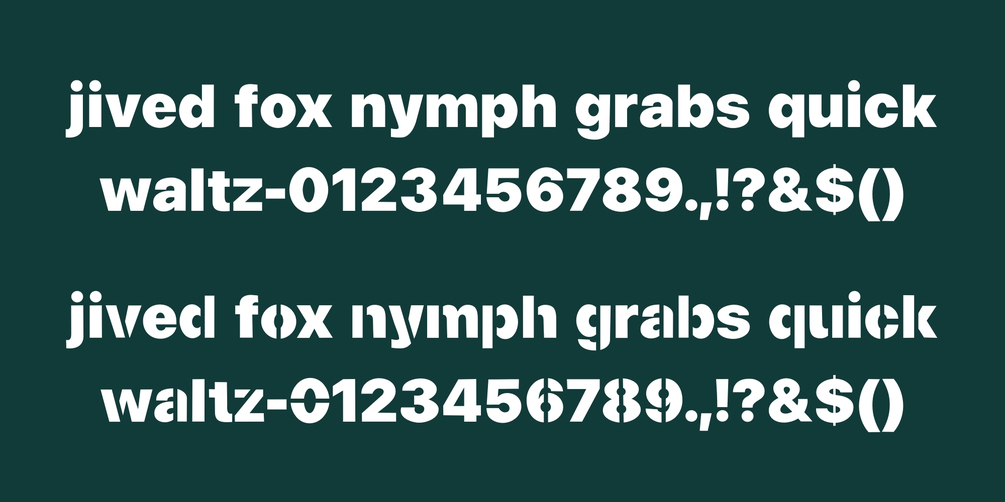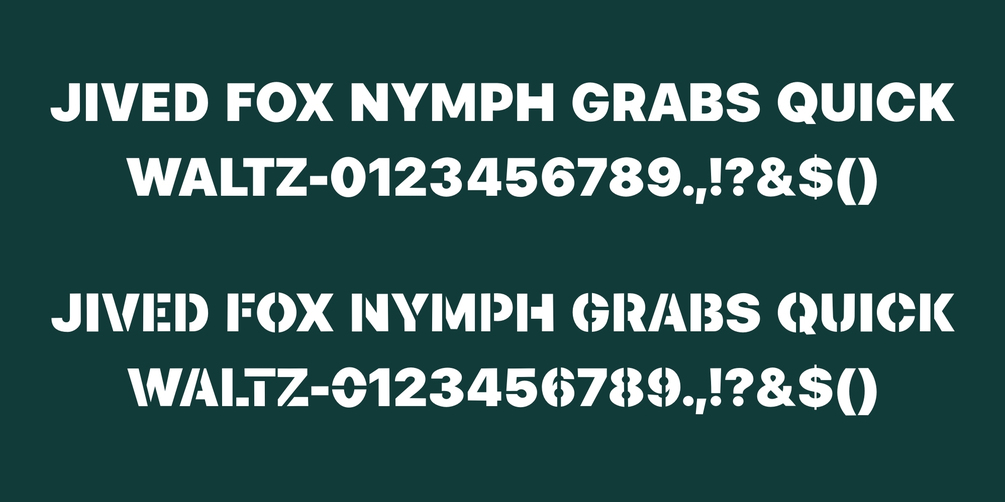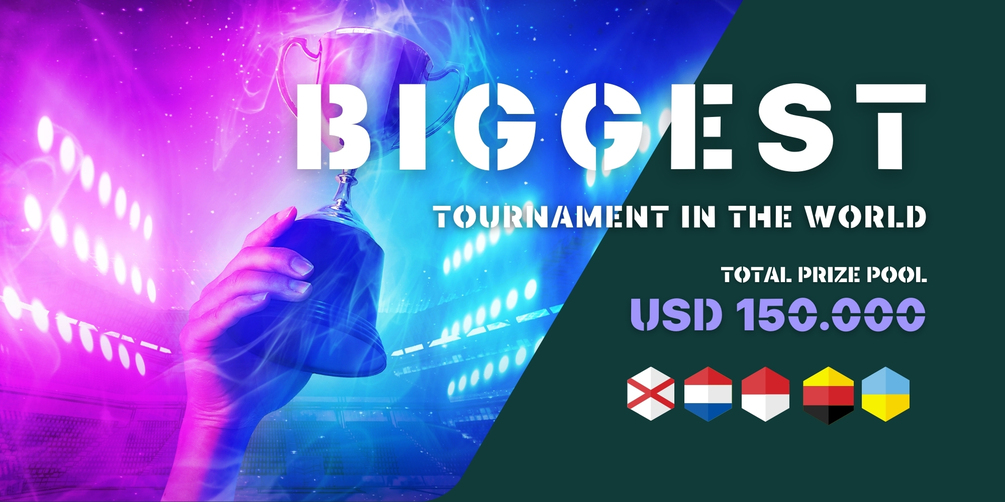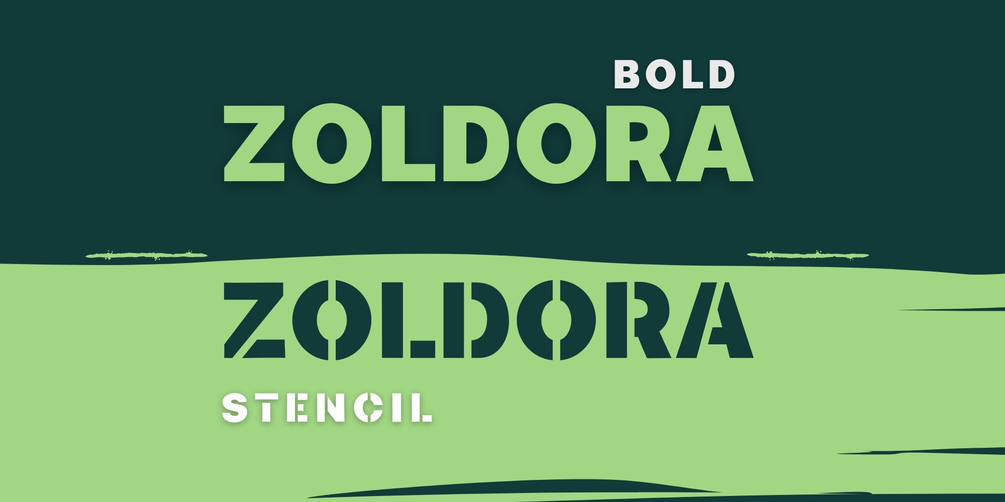
ZOLDORA
ZOLDORA is a geometric sans-serif typeface built for bold visual clarity and modern precision. Engineered with consistent stroke weights, sharp horizontal and vertical terminals, and tight letter spacing, it delivers high-impact readability in any size. Its forms are based on strict geometric constructions, combining perfect circles and straight lines for a strong, minimal appearance. The uniform rhythm and clean proportions make it an ideal choice for headlines, logos, UI/UX interfaces, tech branding, and editorial layouts where strength and clarity are essential. ZOLDORA supports multilingual characters and is optimized for both print and screen display.